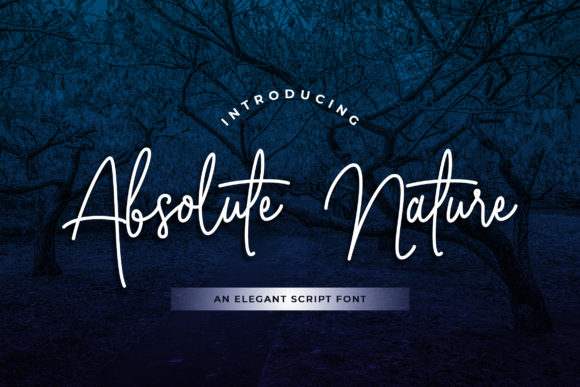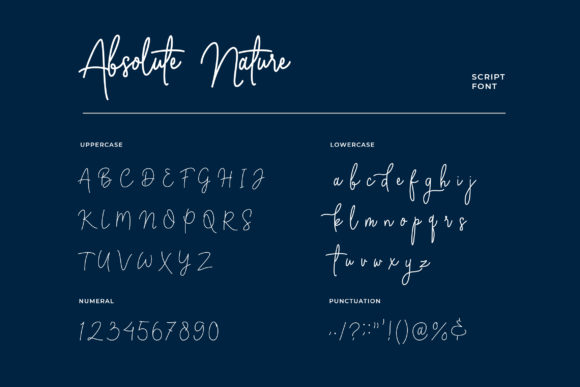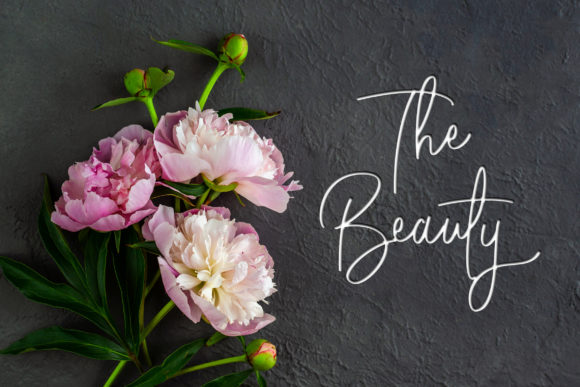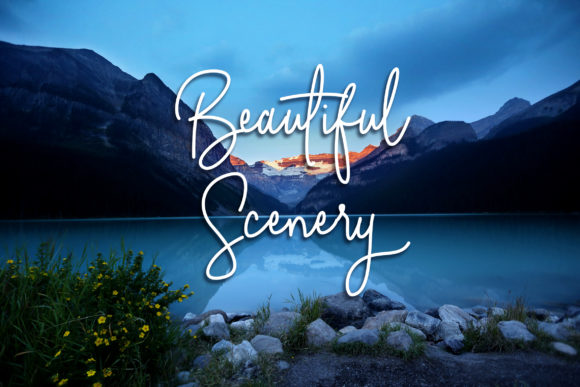
Absolute Nature Font
About Absolute Nature Font
“Absolute Nature” sounds like a sophisticated and thin handwritten font that offers versatility and elegance. With its thin and refined appearance, this font is suitable for a wide range of design projects, making it a valuable asset for various applications.
By using “Absolute Nature” in your designs, you can achieve a sense of sophistication and grace. Its handwritten style adds a personal and artistic touch, making your creations feel more refined and captivating.
This font’s thin and elegant nature makes it suitable for various design contexts. Whether you’re working on web sites, social media graphics, quotes, brand designs, magazines, or billboards, “Absolute Nature” can effortlessly enhance the visual appeal and create a sophisticated atmosphere.
With “Absolute Nature,” you have the flexibility to utilize it across a wide array of design project needs, allowing you to maintain a consistent and refined look throughout your work.
Incorporate “Absolute Nature” into your designs, and you’ll see how it adds a touch of sophistication, making your projects visually stunning and captivating.
While embracing the thin and sophisticated style of “Absolute Nature,” remember to maintain readability and legibility, especially for smaller sizes and longer text passages. Proper spacing and alignment between letters ensure that the text remains clear and easy to read, preserving the font’s overall elegance and refinement.
In conclusion, “Absolute Nature” is a sophisticated and thin handwritten font suitable for various design project needs. Embrace its versatility and elegance, and let it be the font that adds a touch of sophistication to your web sites, social media, quotes, brand designs, magazines, and billboards. With “Absolute Nature,” your designs will exude grace and captivate your audience, leaving a lasting impression and making them truly exceptional and visually captivating.